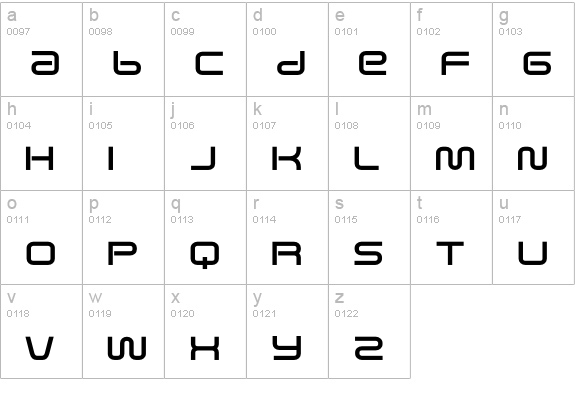
SavedByZero Font Details
SavedByZero is a captivating and modern font that effortlessly combines elegance with a touch of playfulness. This beautifully designed typeface is perfect for adding a unique and eye-catching element to any project, whether it's a logo, website, or printed materials. Featuring clean lines and a balanced letterform, SavedByZero exudes a sense of sophistication and professionalism. Its versatile nature allows it to be used across a wide range of design styles, from minimalistic and contemporary to bold and expressive. But what sets SavedByZero apart from other fonts is its incredible value - it's completely free! That's right, this stunning font is freely available to download at FontsMarket.com. Now, you can enhance your designs without breaking the bank. The creators of SavedByZero understand the importance of accessibility and believe that everyone should have access to high-quality design resources without the burden of cost. By offering this font for free, they are empowering designers of all levels to create stunning works of art without limitations. So, whether you're a seasoned designer looking to add a fresh touch to your portfolio or a beginner just starting on your design journey, SavedByZero is the perfect choice. With its elegant and playful aesthetic, it will effortlessly elevate your projects and make a lasting impression. Don't miss out on this opportunity to enhance your designs with a font that not only looks amazing but is also freely available. Visit FontsMarket.com today to download SavedByZero and unlock a world of creative possibilities.